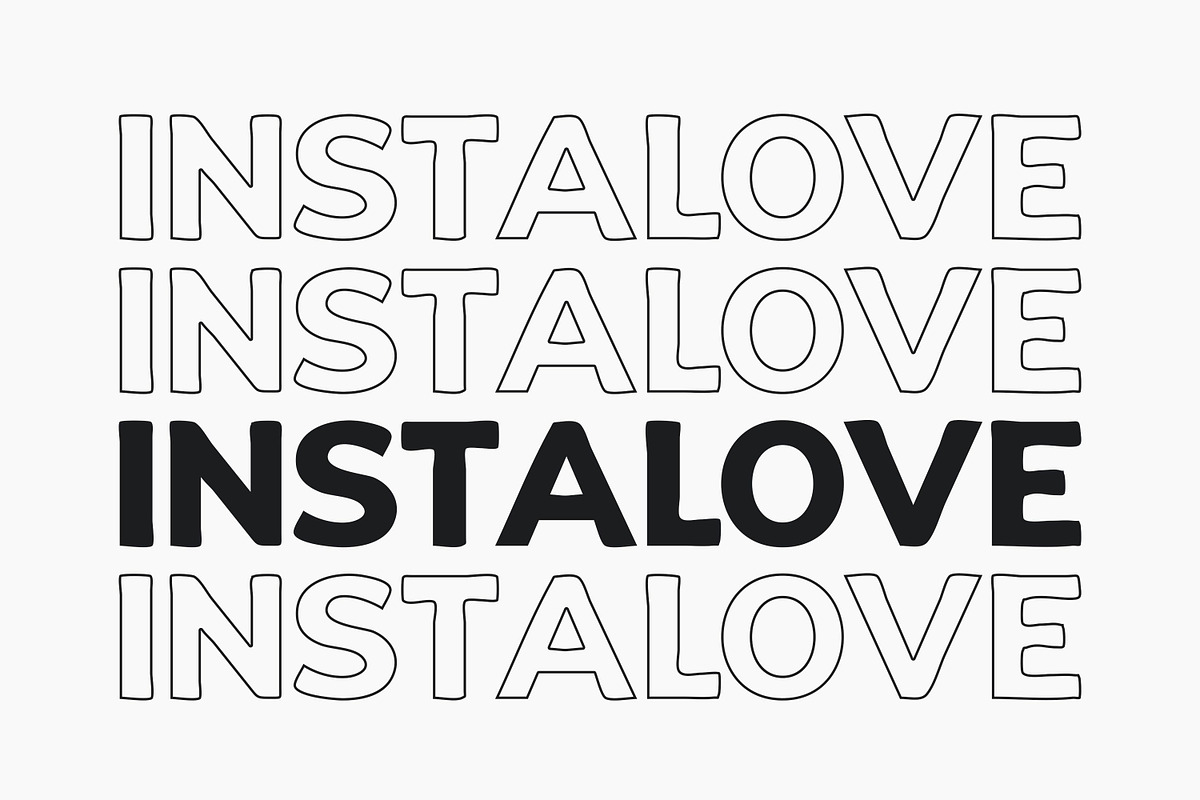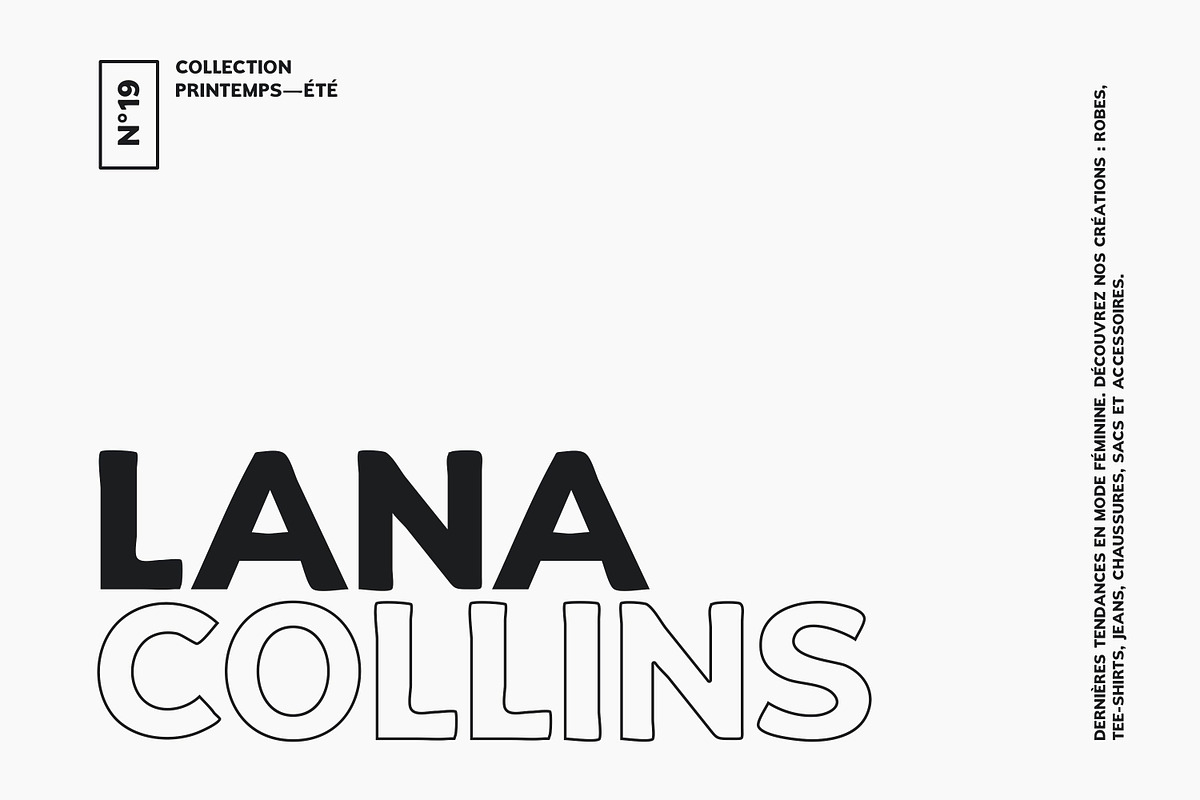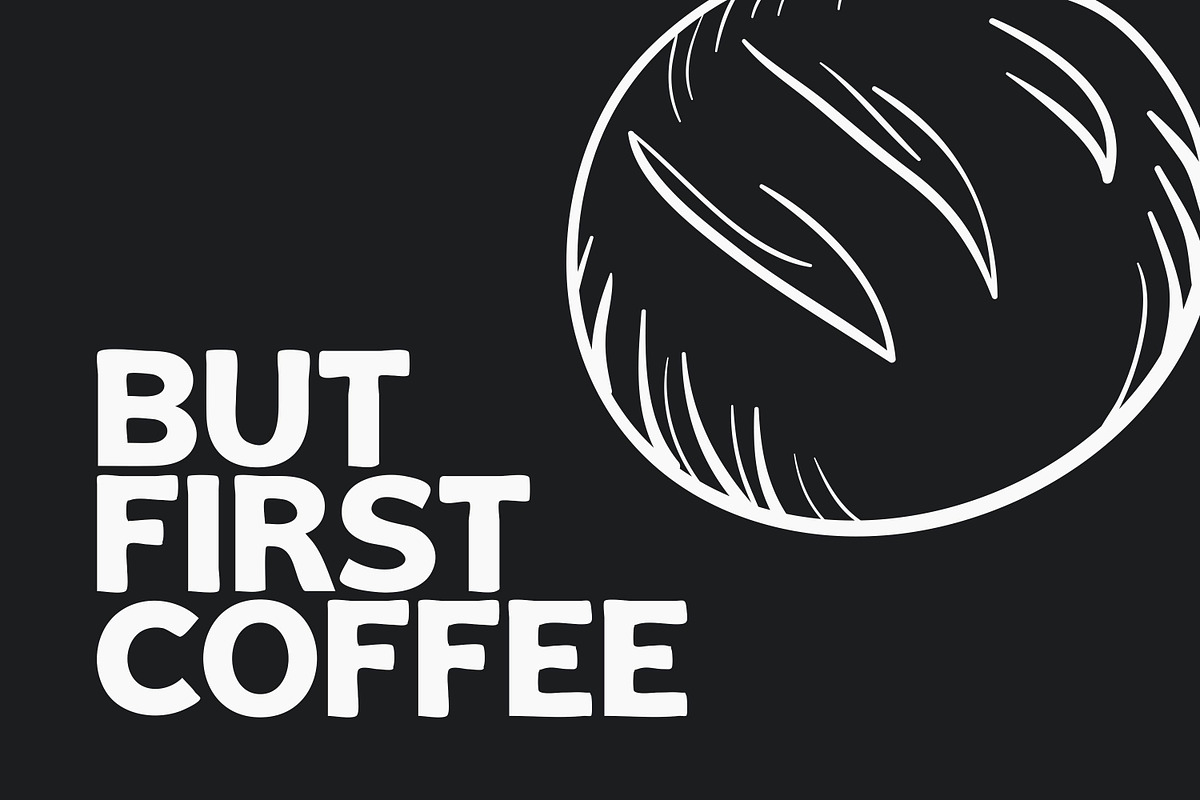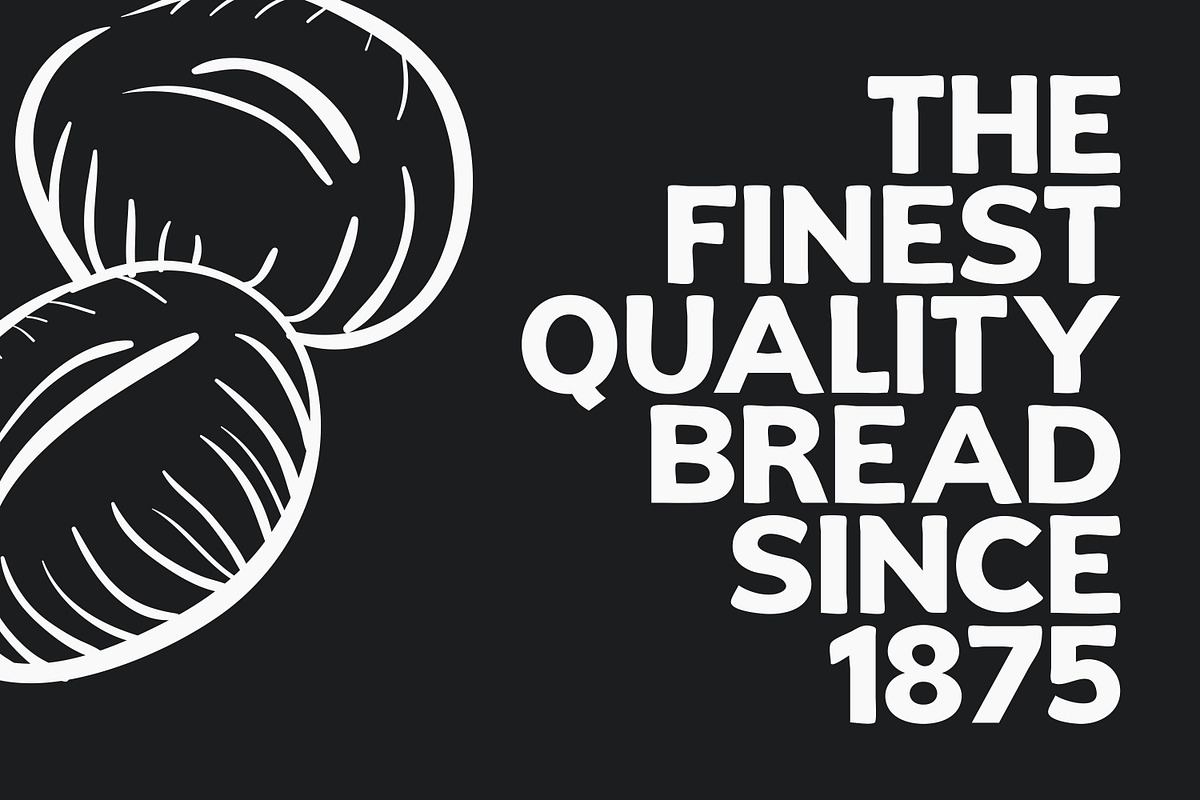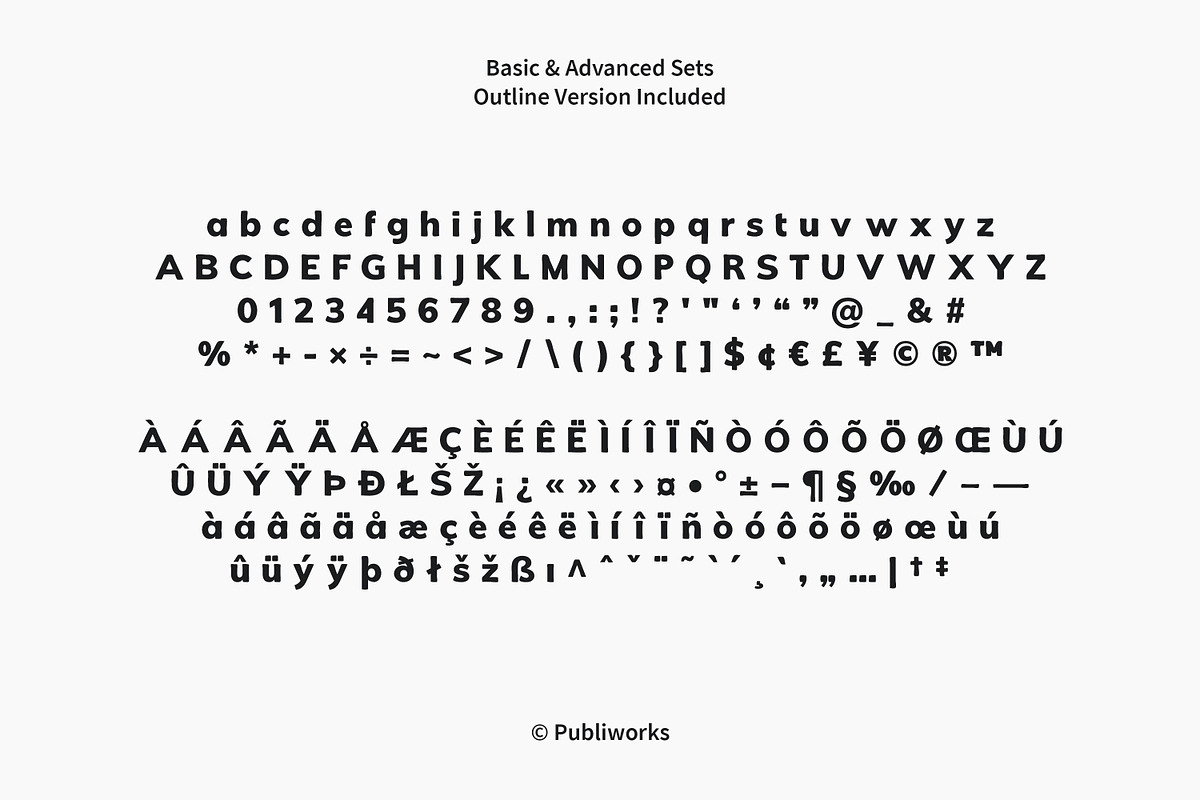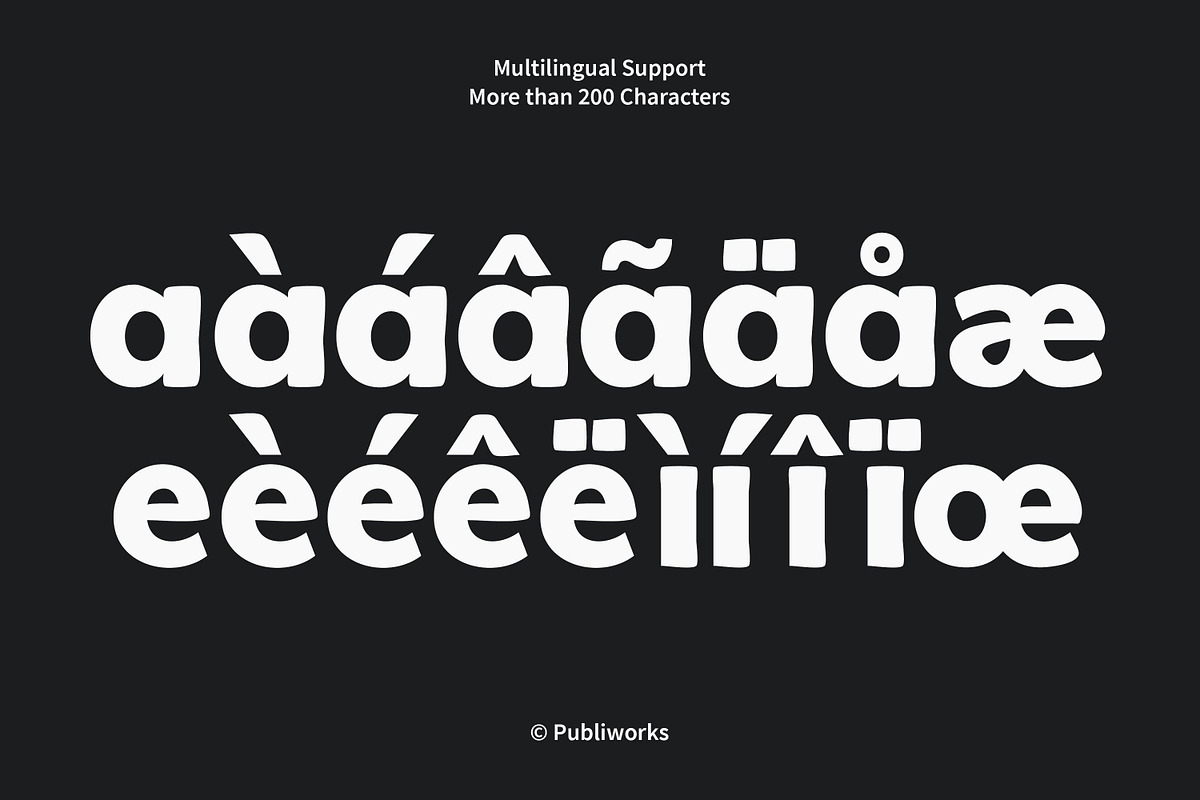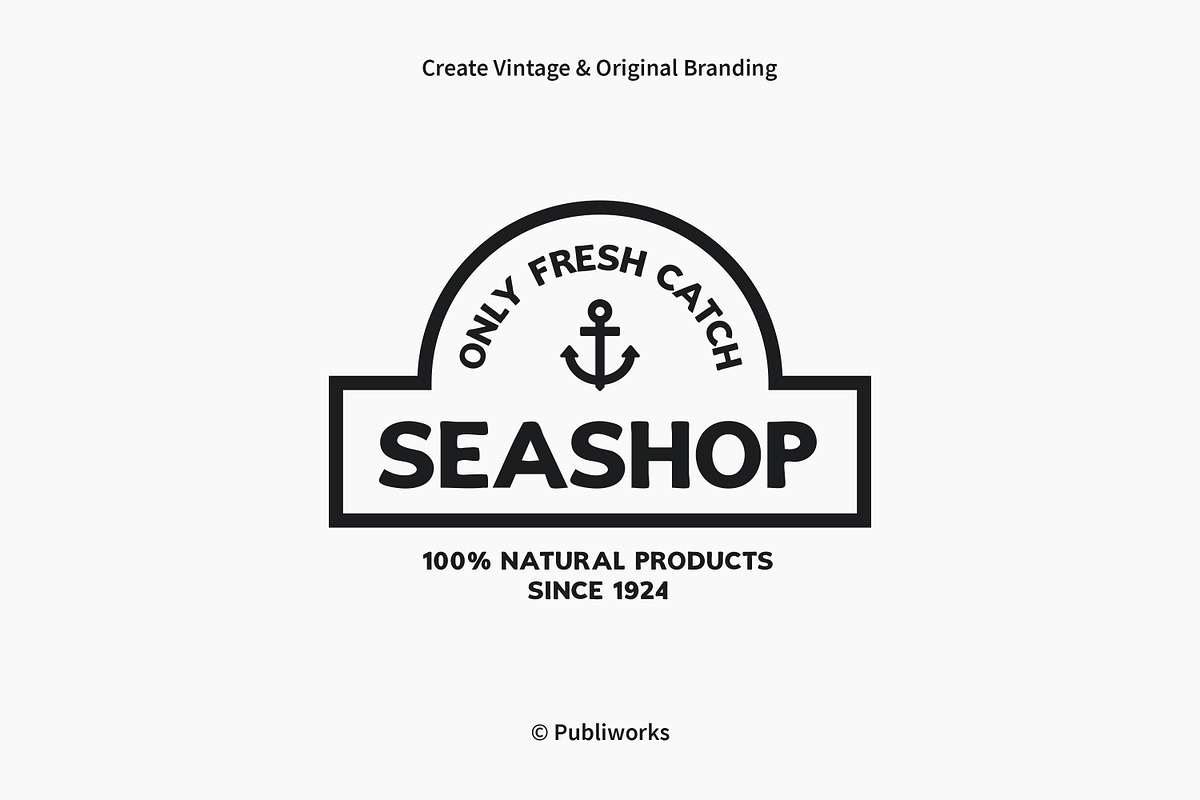
Sunset Dream - Sans & Outline Font
Sunset Dream - Sans & Outline Handmade Font
2 Styles (Sans, Outline)
209 Characters (Basic & Advanced Sets)
Lowercase & Uppercase
Sunset Dream - Sans & Outline Font by Publiworks fits naturally into Branding, posters, packaging, typography.